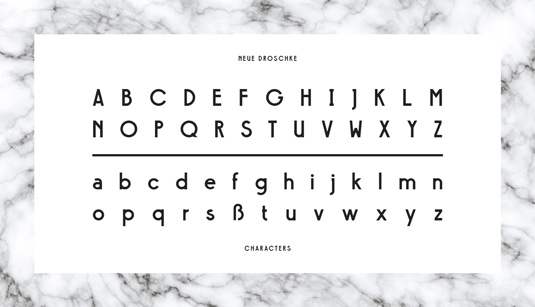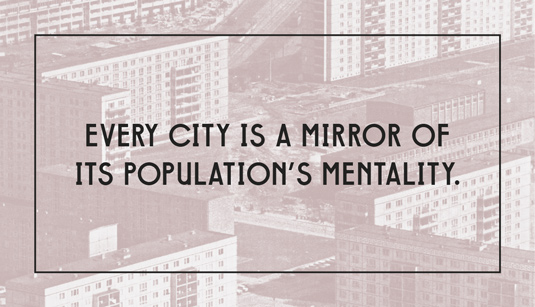
Font of the day: Neue Droschke
Neue Droschke by David Einwaller
Inspired by Art Deco signage and late 1920s typography, today's font of choice Neue Droschke was created by graphic designer David Einwaller. Available from Ten Dollar Fonts, the typeface is described as having "a slightly playful appearance through the combination of narrow and fully round capital letters".